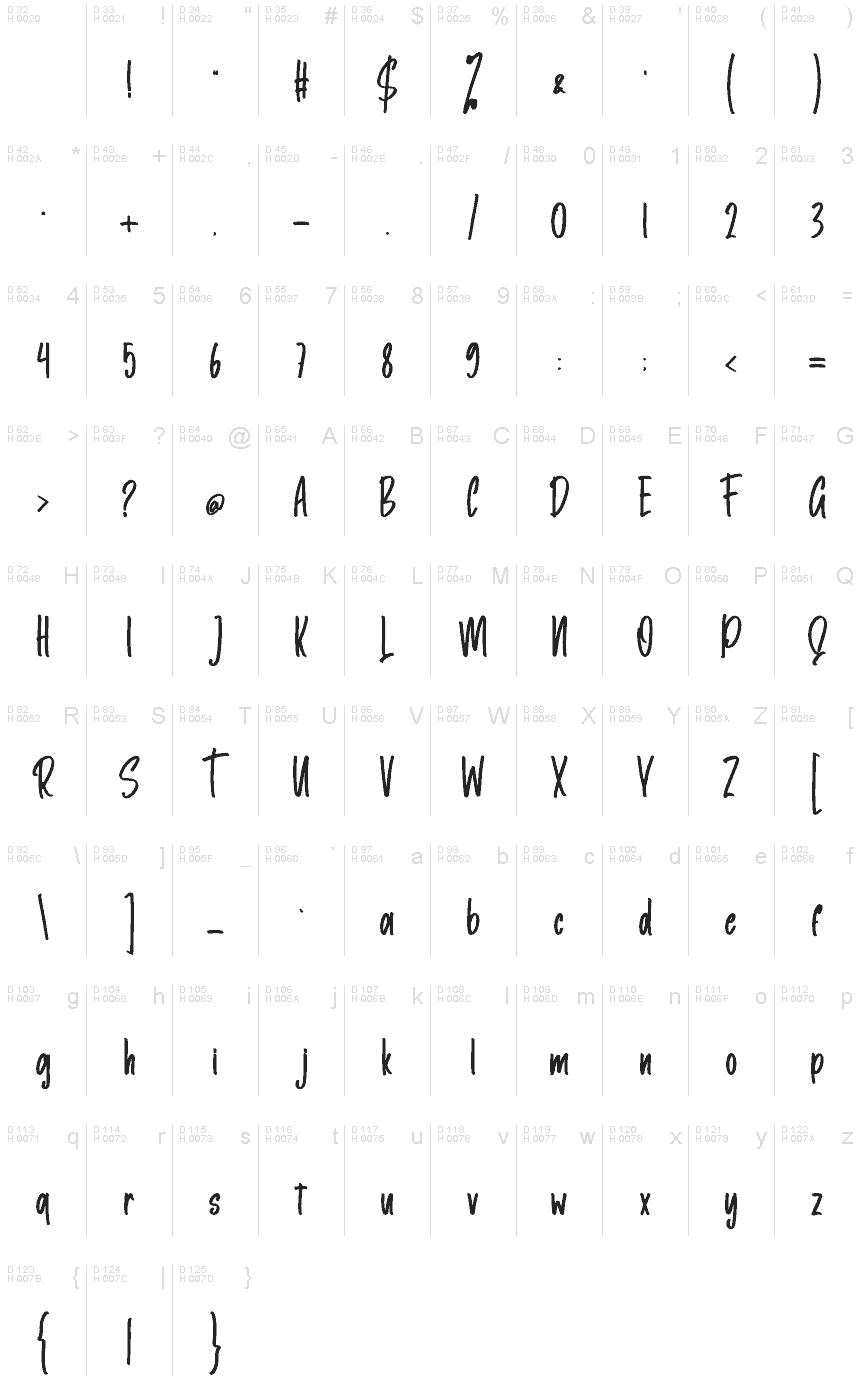
Baldhey
Baldhey is an elegant handwritten font with sharp characters and a relaxed baseline. The natural and unconstrained characters are inspired by classic book titles and vintage posters. With a modern aesthetic, the handlettered font adds fun to any design with its curvy letters and bold designs that reflect both creativity and elegance. It’s perfect for designing vintage flyers and posters, movie titles and logos, quotes and slogans, packaging design, social media posts, branding projects, etc.